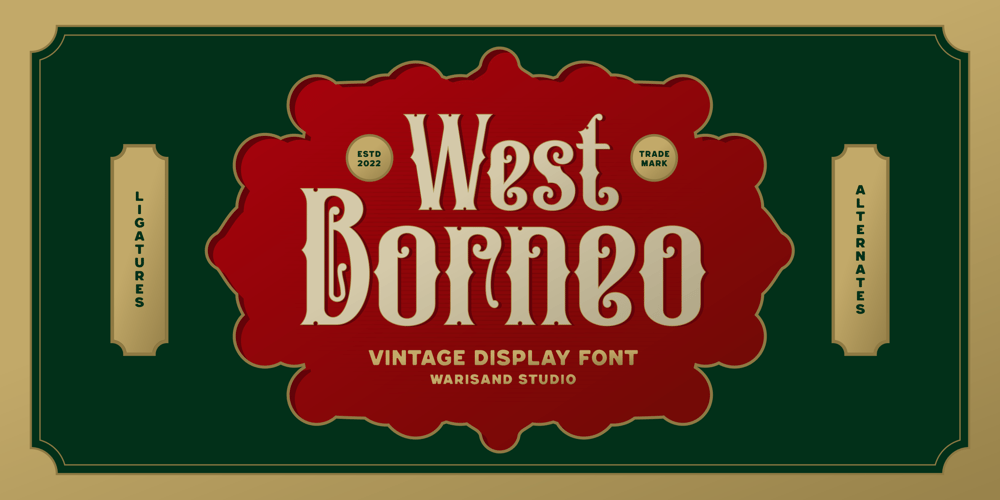
West Borneo
West Borneo font
West Borneo Font Family was designed by Widarti Sri Wahyuni and published by Warisand. West Borneo contains 1 styles and family package options. West Borneo is a Vintage 80’s Font inspired by beautiful vintage 80’s sign art and lettering. The font comes with unique alternate design characters to give your designs an elegant and artistic look. It is perfect for logo and packaging design, short phrases or headlines.